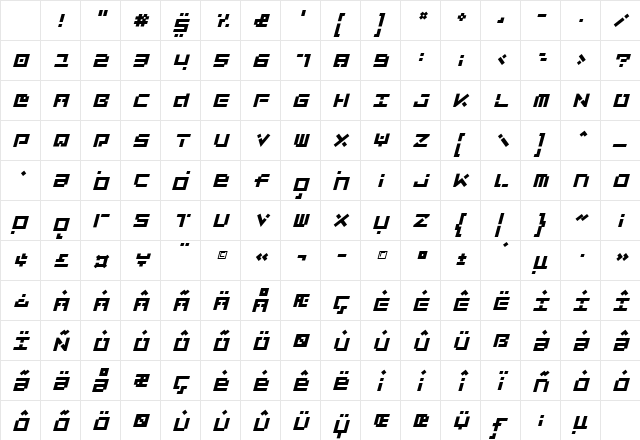
Complete LuggageBroken Italic glyph index. Displaying only characters natively supported by LuggageBroken Italic font.
LuggageBroken is a composed and adaptable typeface that performs quietly and consistently across a wide range of design contexts. The slanted form adds forward momentum and visual energy.